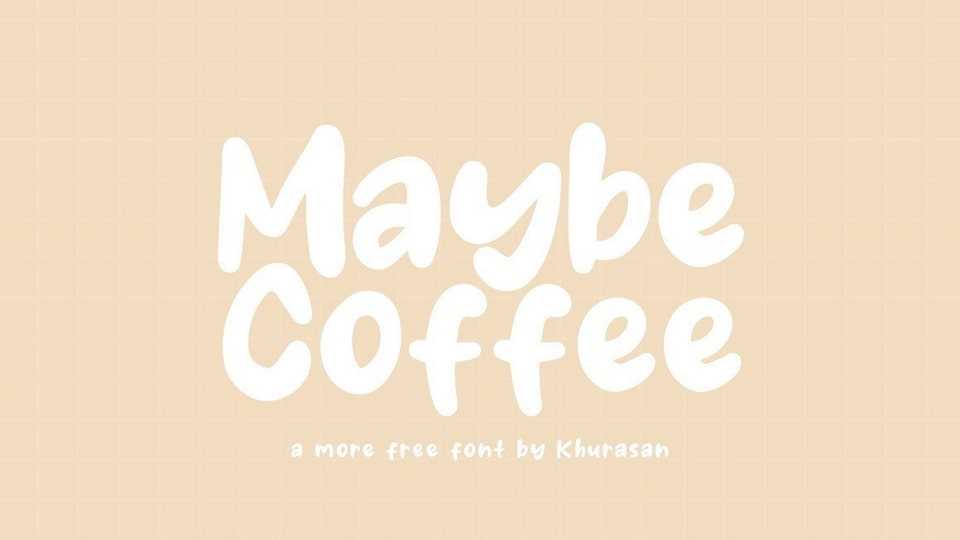
Download Maybe Coffee font, a playful and funny handwritten typeface. Maybe Coffee font is perfect for posters, logos, magazines, book covers, banners, and many more.